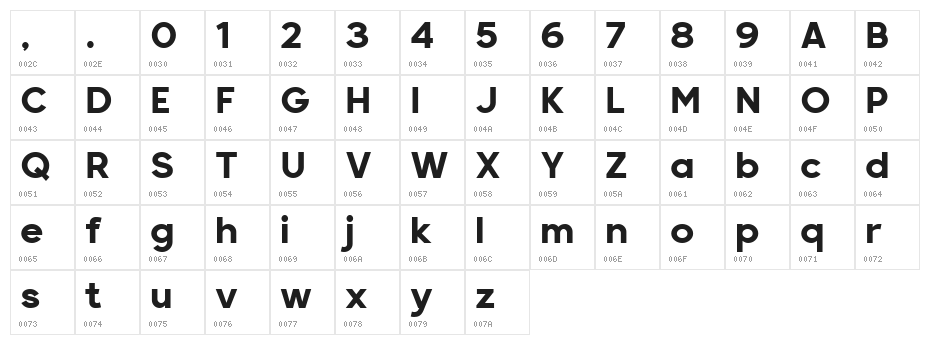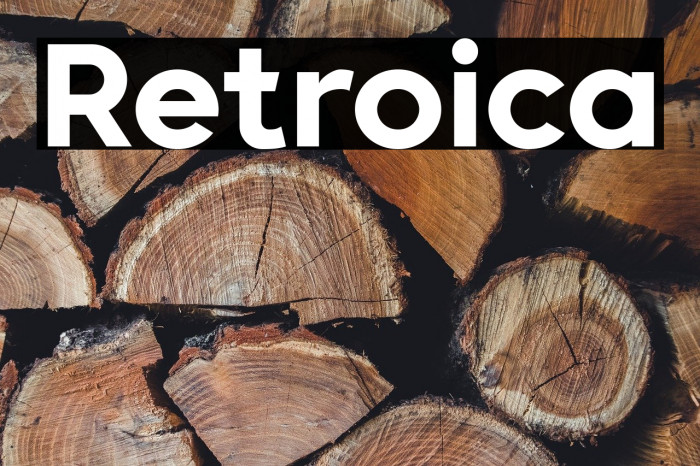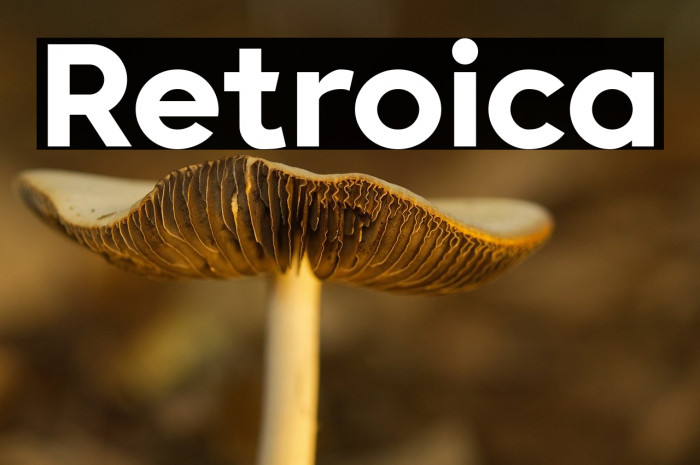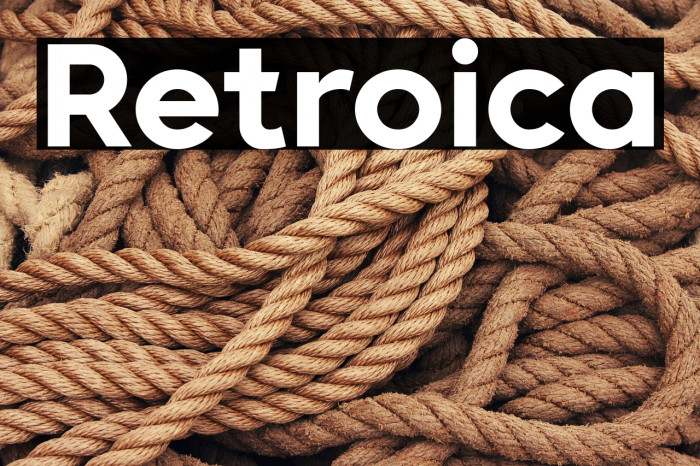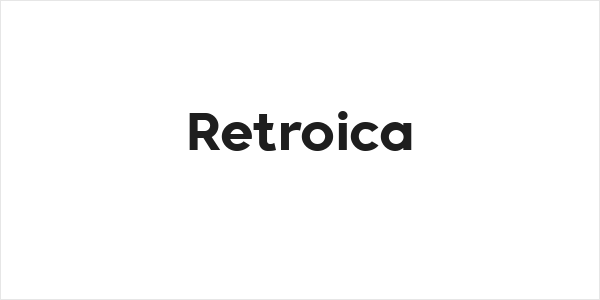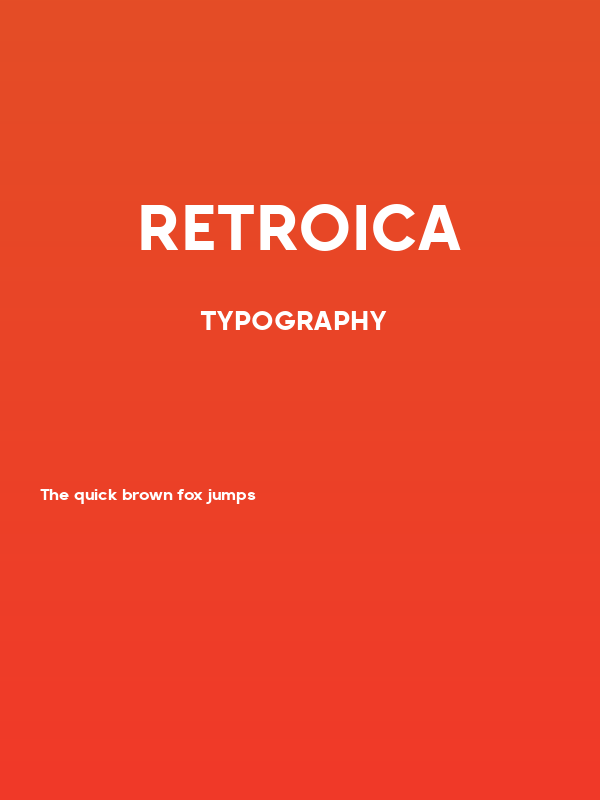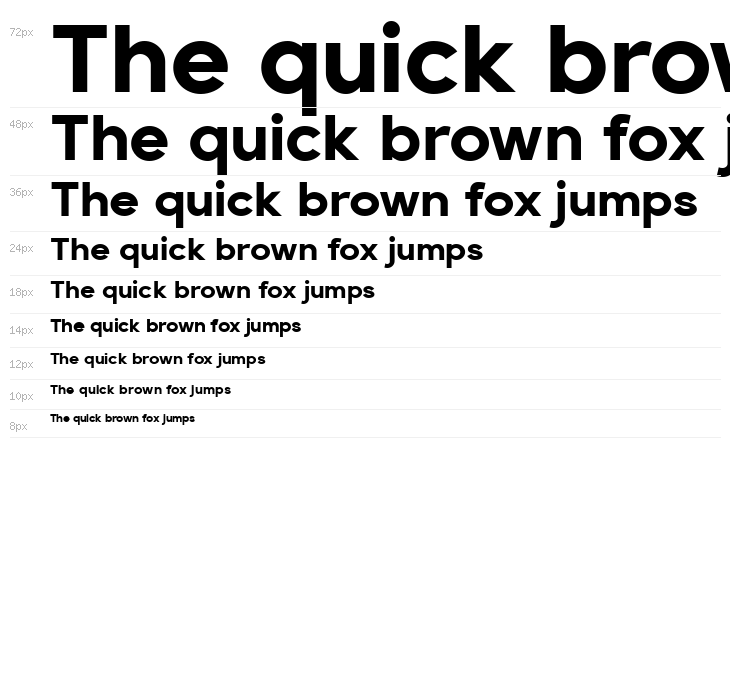
Retroica Font
Retroica Description
This font features a clean and modern sans-serif design with bold, uniform strokes that create a strong visual impact. The characters are well-proportioned, with a consistent height and width that enhances readability. The uppercase letters are slightly taller than the lowercase, providing a clear distinction between the two. The numerals are designed to match the overall style, maintaining the same boldness and clarity. The punctuation marks are simple yet effective, complementing the overall aesthetic. This font is versatile, suitable for a variety of design applications.
| Use Case | Headlines, Logos, Branding |
| Proposed Projects | Ideal for branding, advertising, headlines, and digital media where a modern and bold statement is needed. |